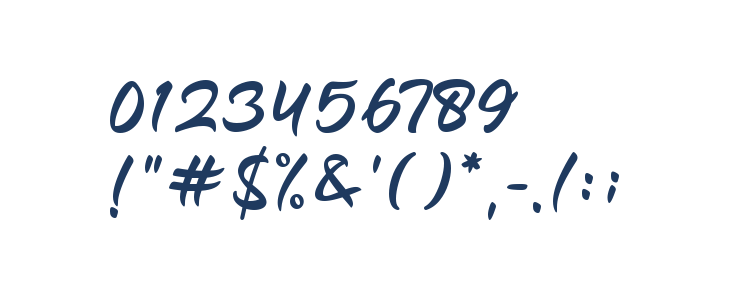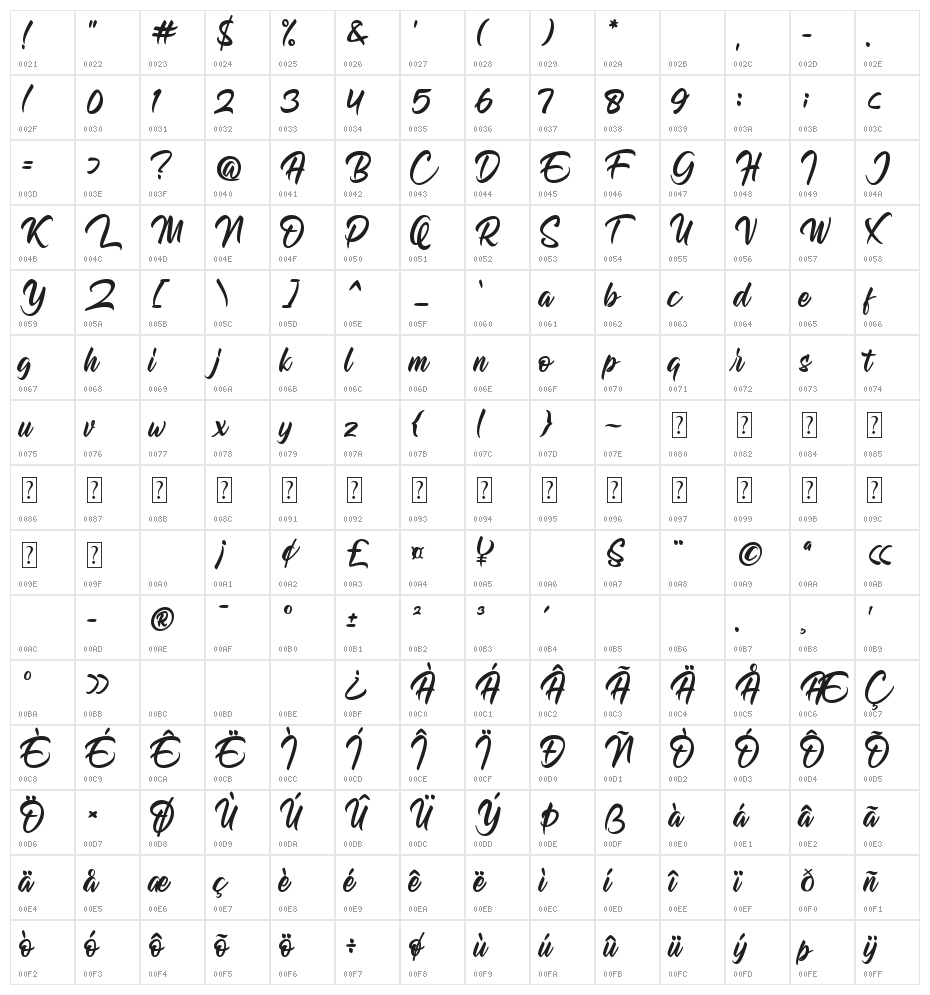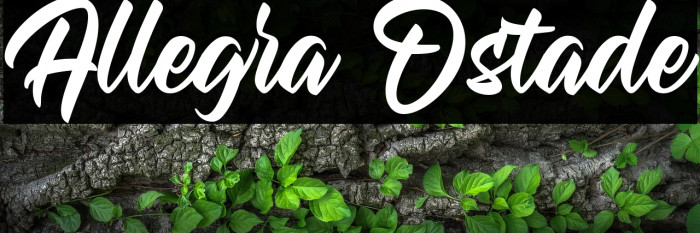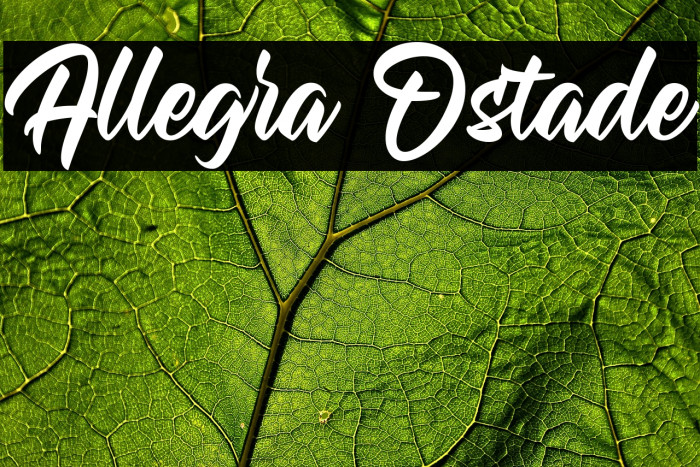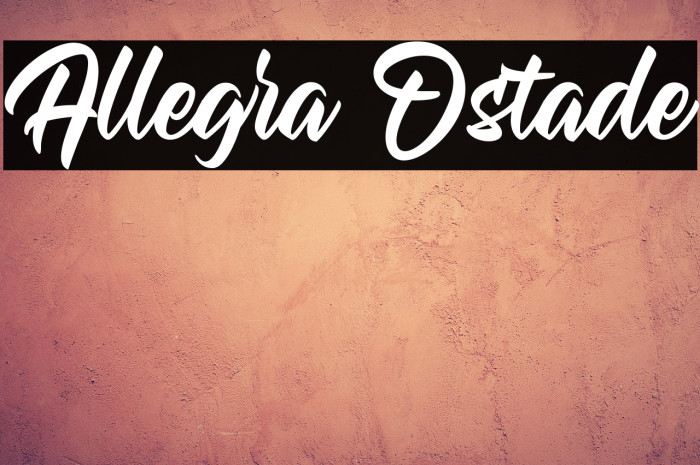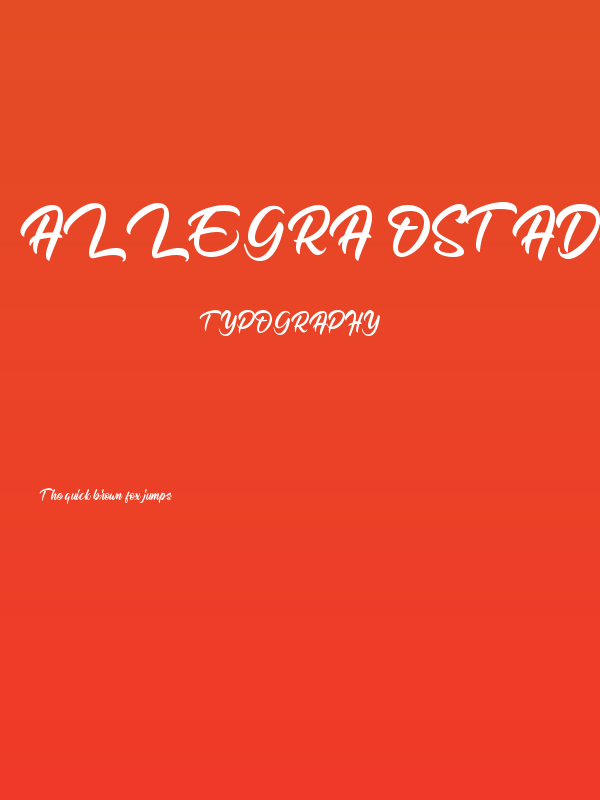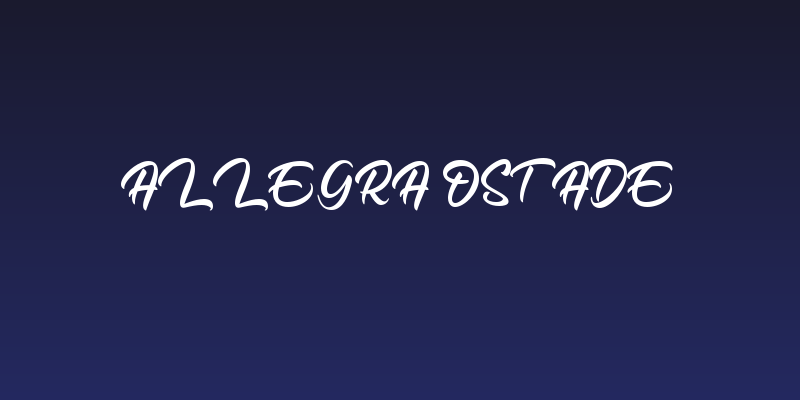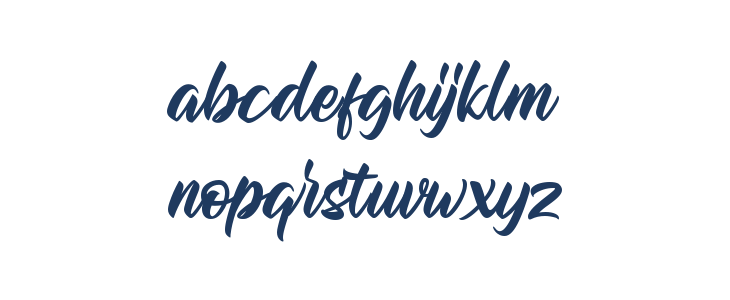
Allegra Ostade Font
Allegra Ostade Description
This font exhibits a dynamic and flowing script style, characterized by its elegant and cursive letterforms. The uppercase letters are bold and sweeping, with distinctive loops and flourishes that add a sense of movement and grace. The lowercase letters maintain a consistent flow, with smooth connections between characters, enhancing readability while preserving the artistic flair. The numerals are equally stylish, with a slight slant that complements the overall script aesthetic. Special characters are thoughtfully designed to match the font's fluidity, making it versatile for various design applications.